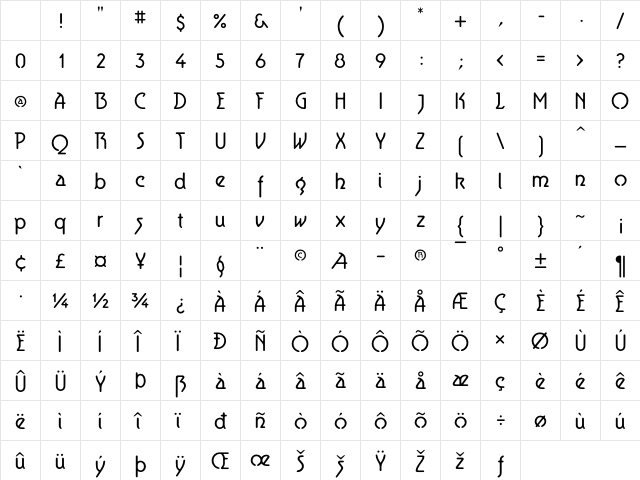
Aerolite Regular Free Font
Aerolite Regular
Foundry: Jan Paul, ￿IGMA FONTS
Designer: Jan Paul
Design Context for Aerolite
Aerolite is a composed and adaptable typeface that performs quietly and consistently across a wide range of design contexts.
Who designed the Aerolite Regular font?